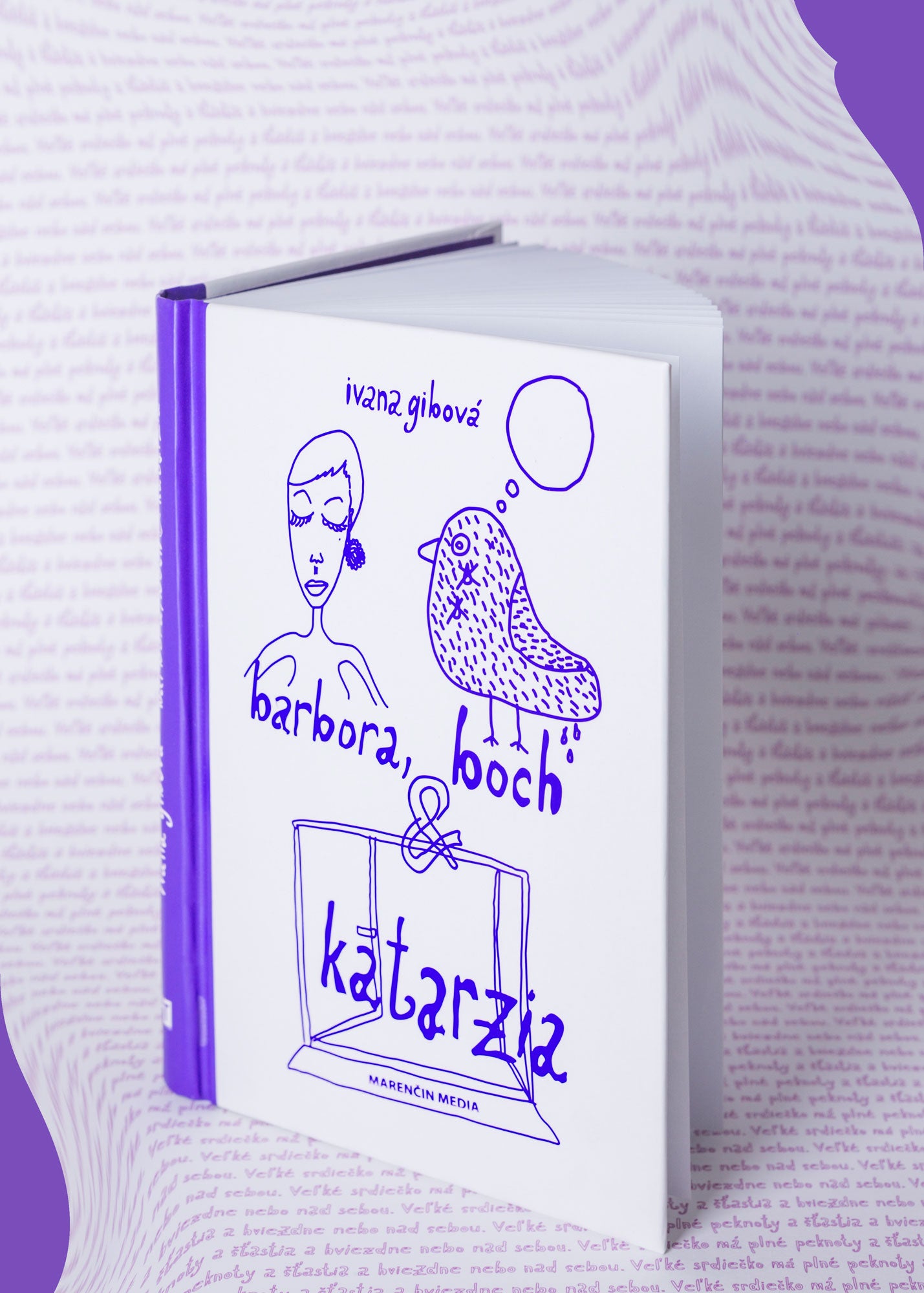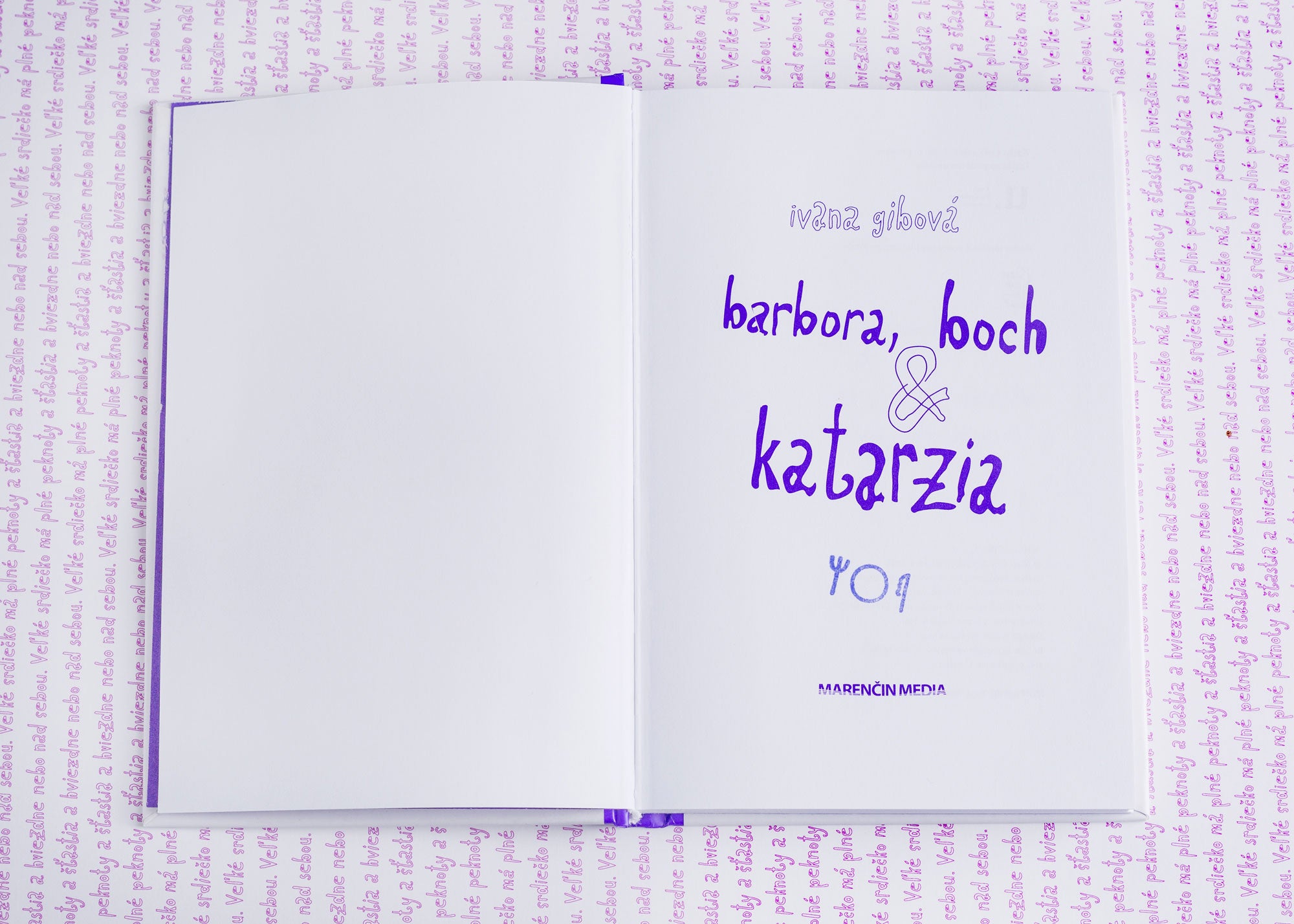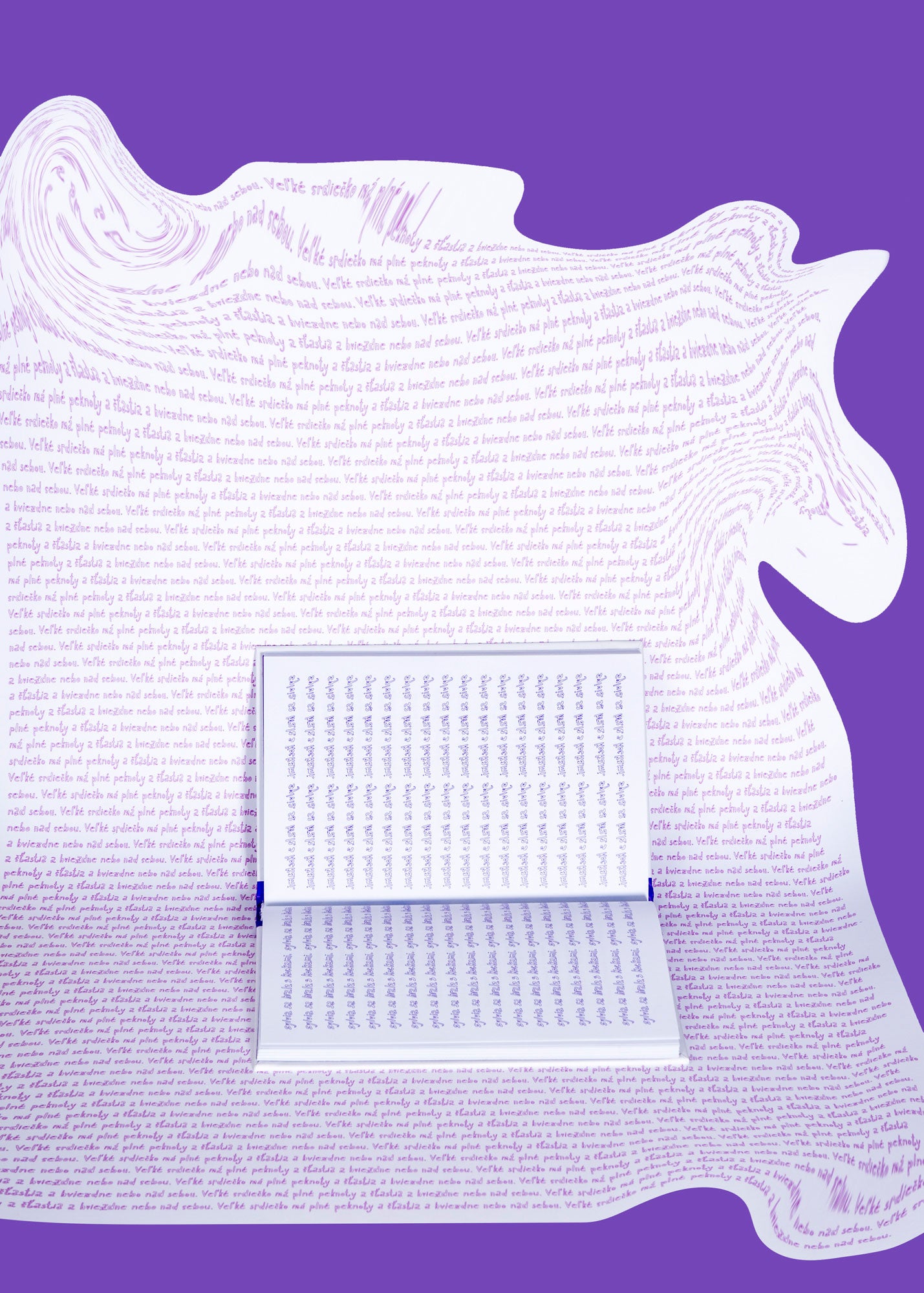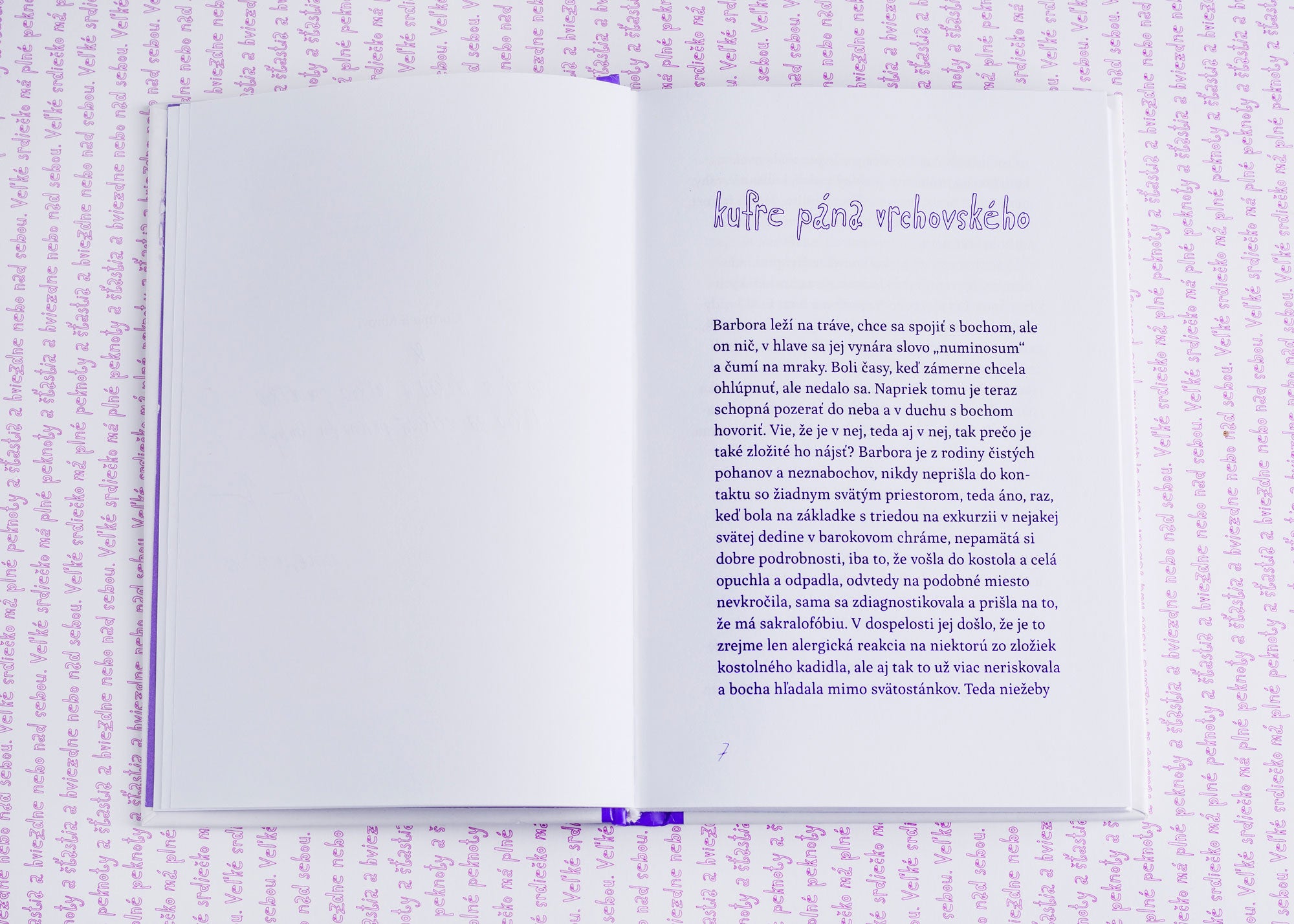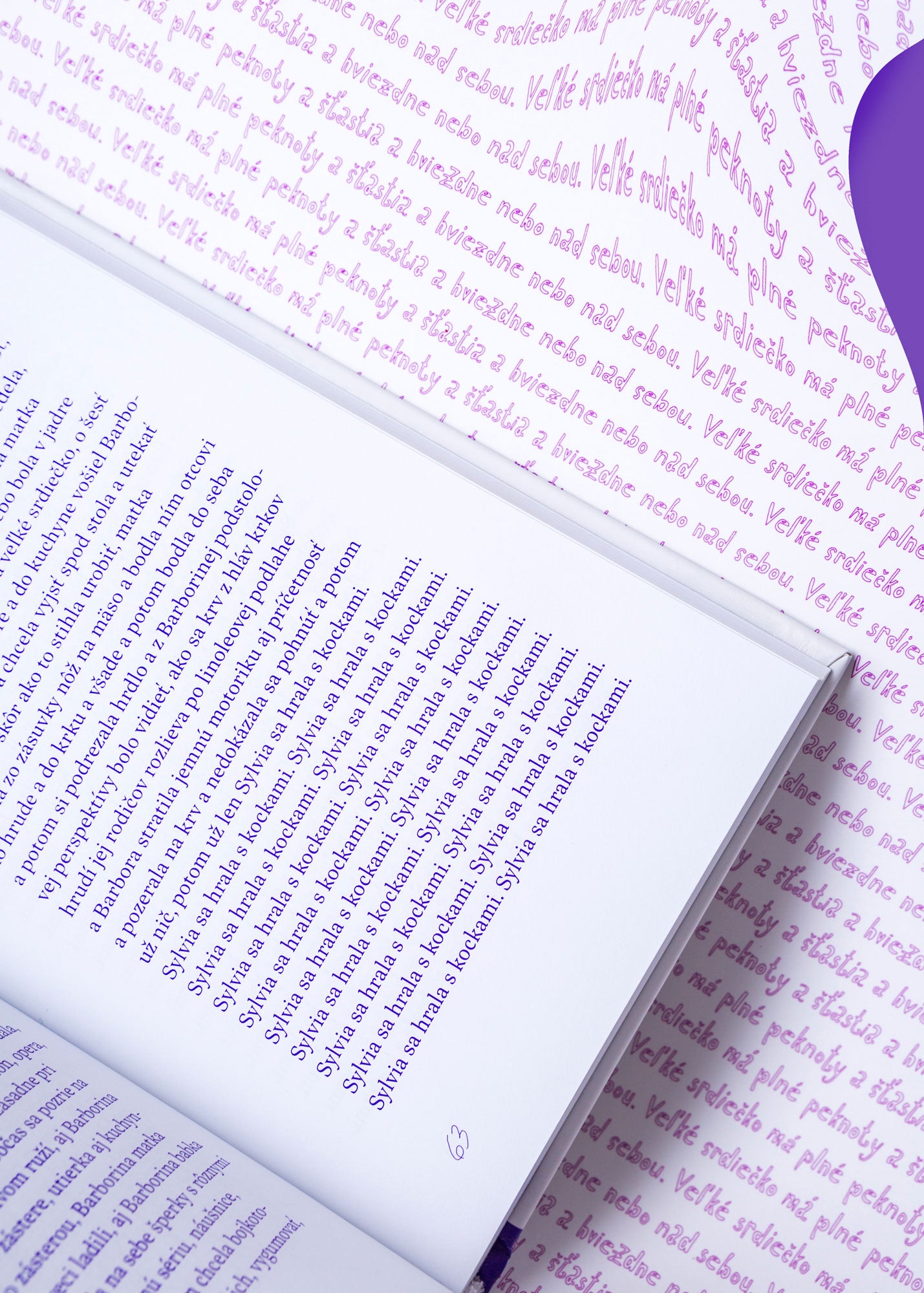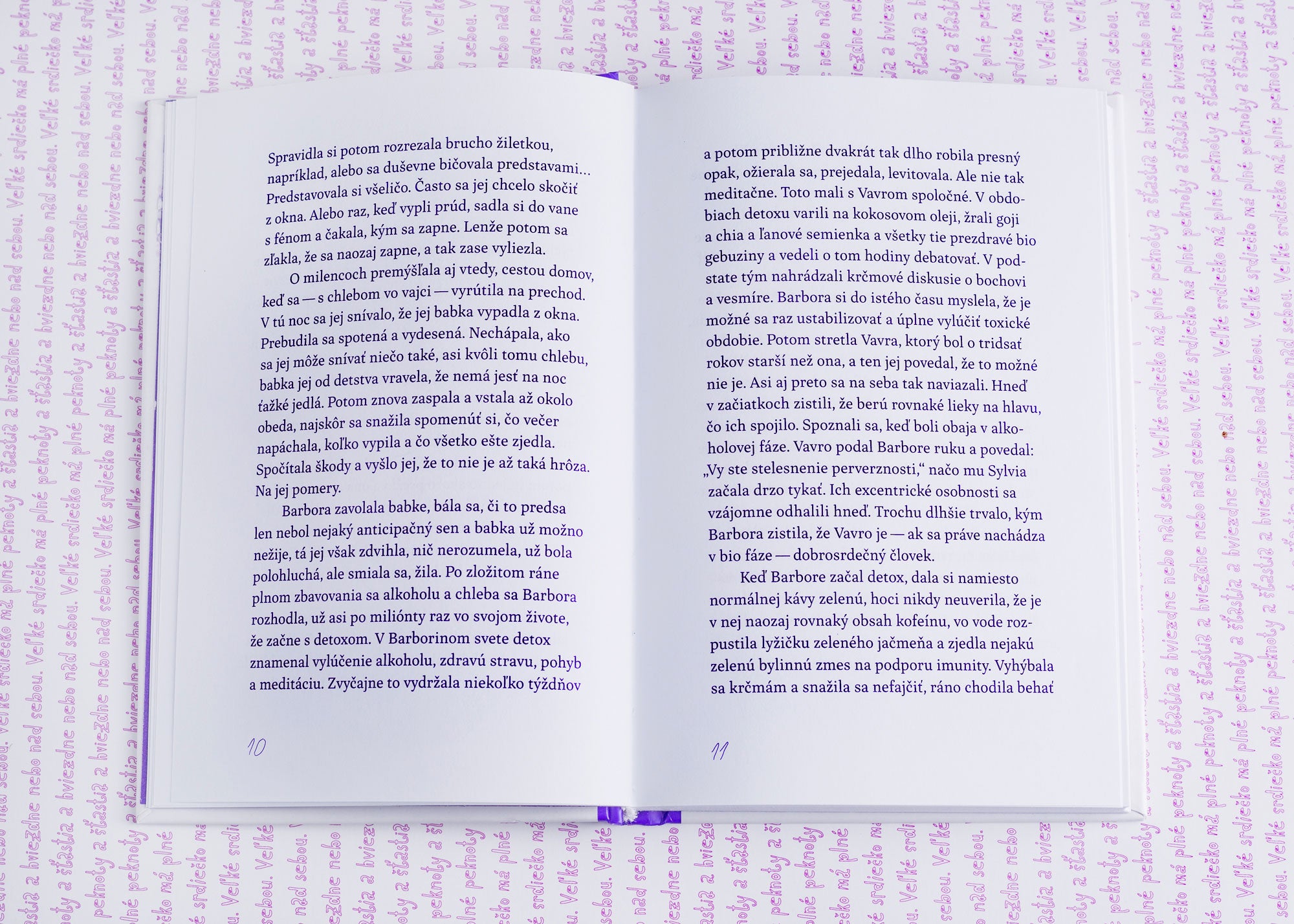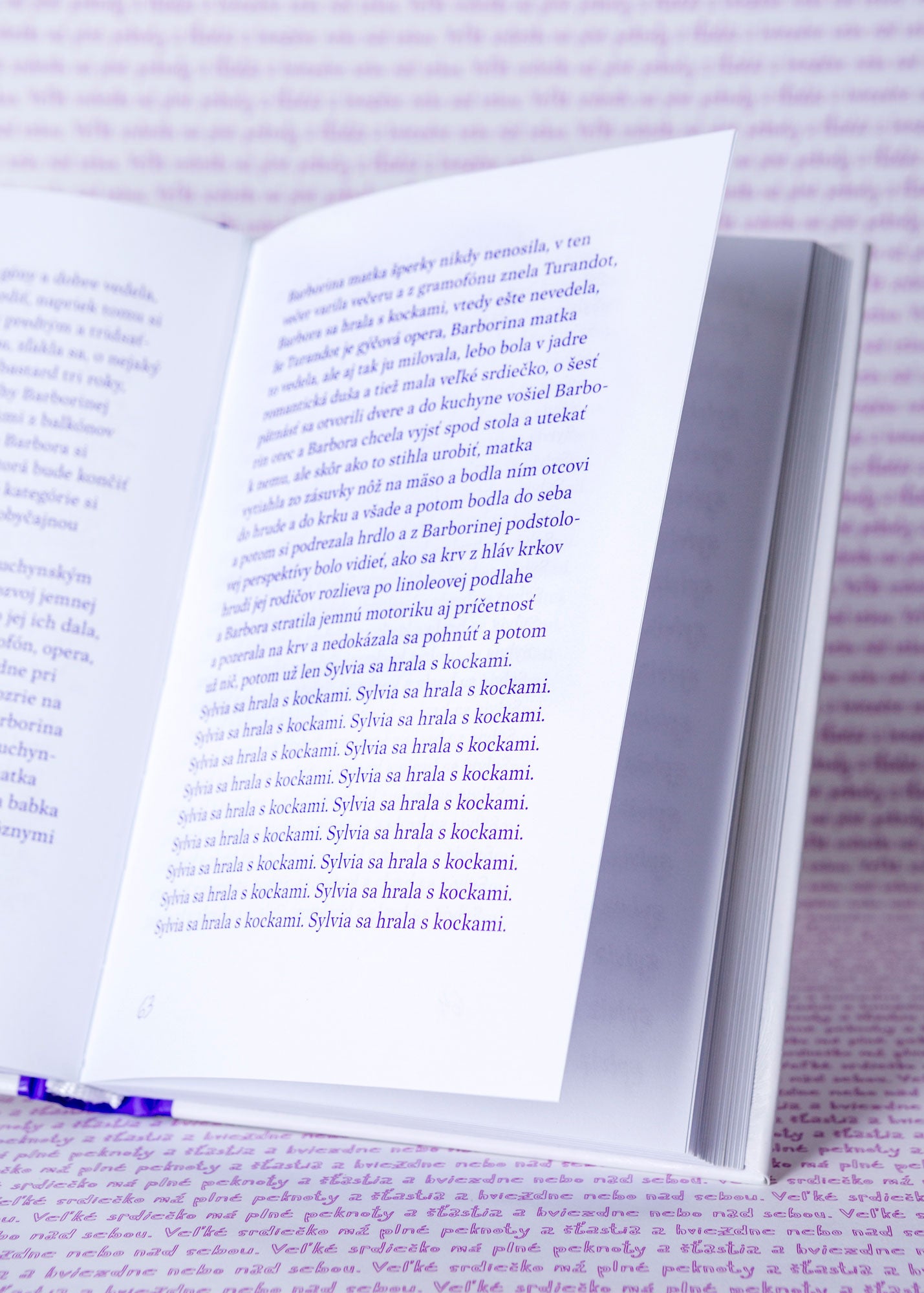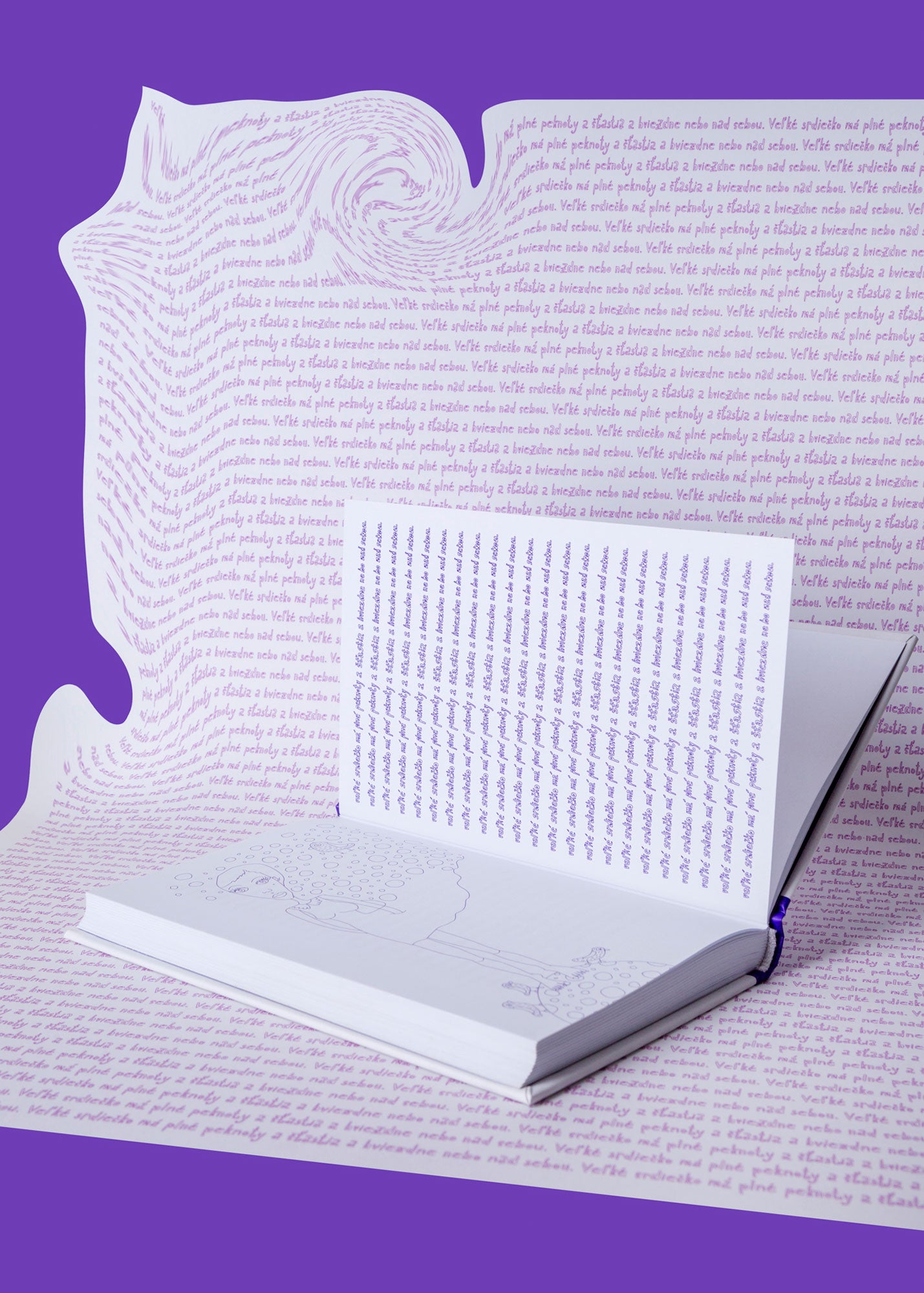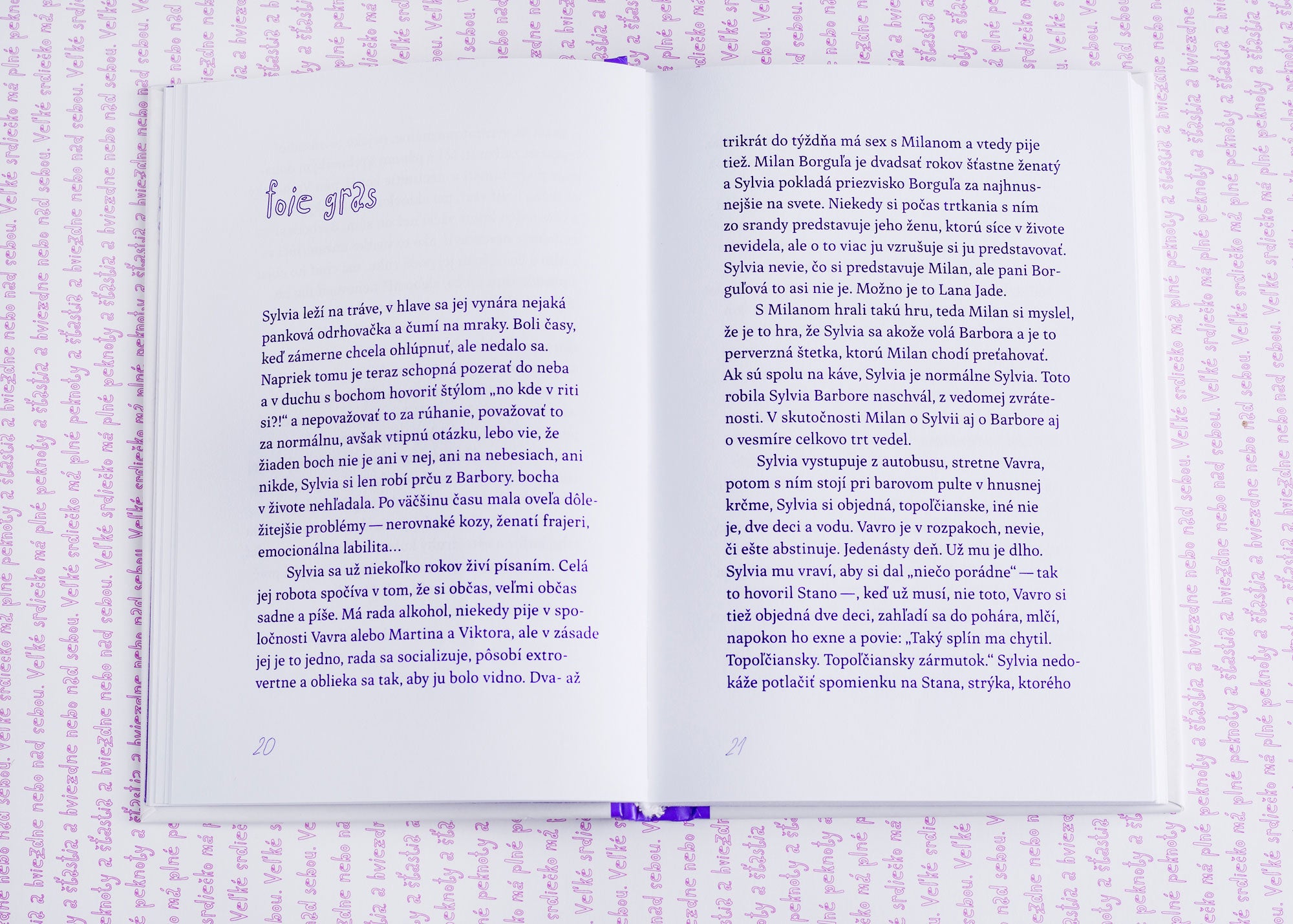
barbora, boch & katarzia
“How to be a good person, if you’re born into a world in which god, children and whores all use the same language?” Romance, eclectics and punk by Ivana Gibová — the affectionate typeface Inka, typesetting with the right margin not aligned, the expressive custom font Katarzia, which was created by digitalizing the author’s own handwriting, original illustrations with a hint of porn, the purple Pantone colour. “A big heart full of prettiness and happiness and a sky full of stars above.”